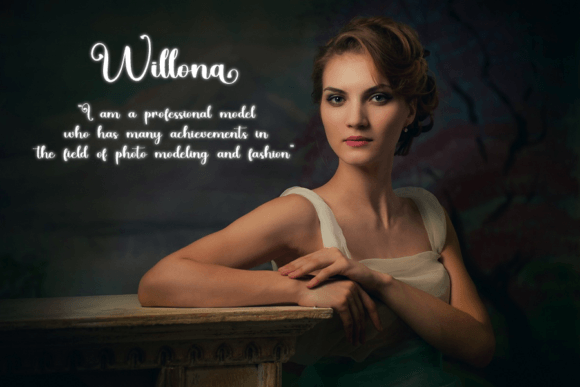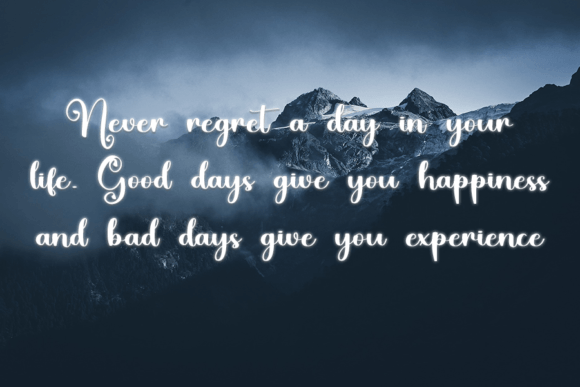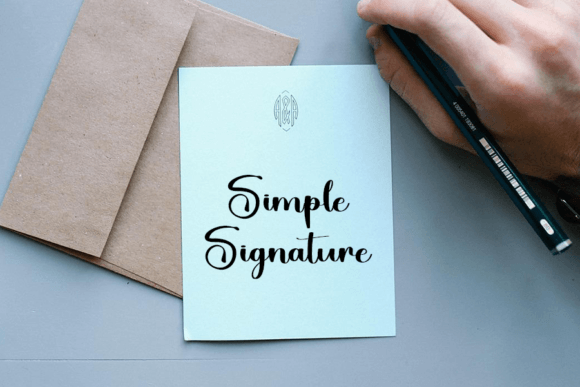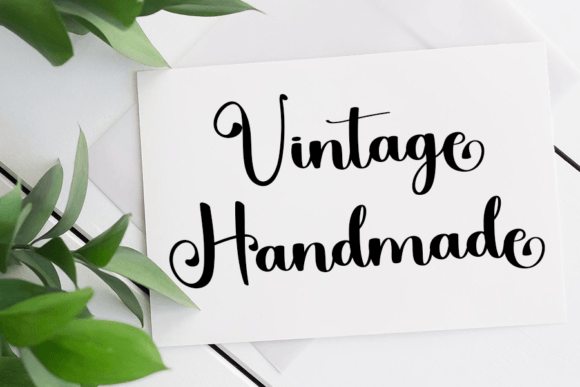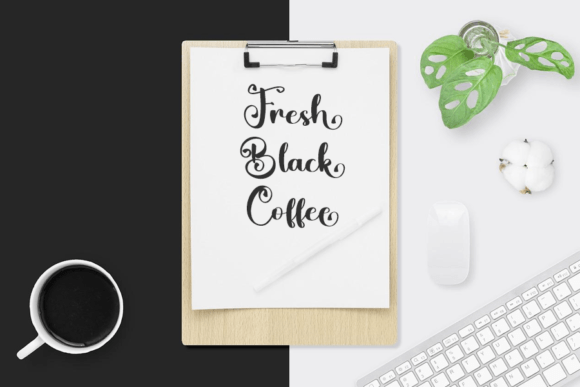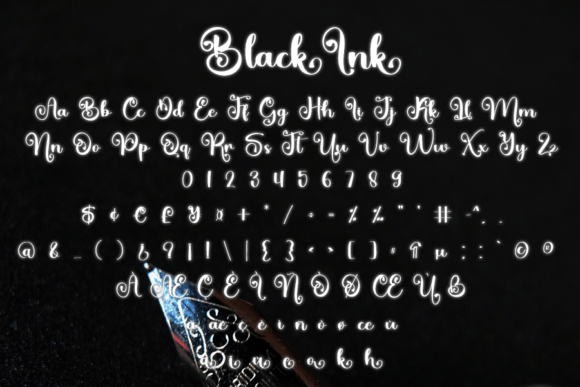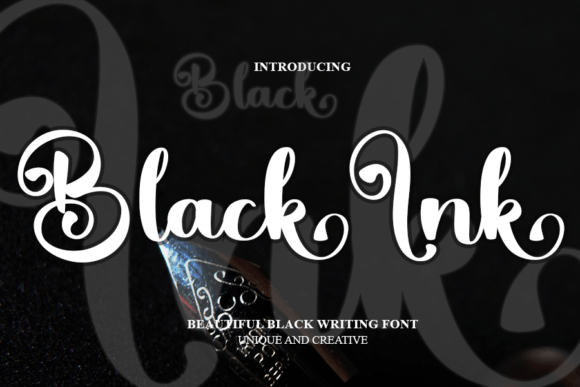
The Quest for the Perfect Font: Discovering Black Ink
I’ll never forget the time I was working on a project for a client who wanted a font that was both modern and elegant. I had spent hours scouring the internet for the perfect font, but nothing seemed to fit the bill. That was until I stumbled upon Black Ink, a cool handwritten font with a modern vibe and spotless form. In this article, I’ll share my experience with Black Ink, its features, and how to make the most of it in your designs.
First Impressions: A Balanced and Versatile Font
Black Ink is a beautifully crafted font that draws inspiration from classic calligraphy. Its balanced and varied strokes make it perfect for a wide range of projects, from branding and advertising to crafting and DIY tutorials. The font’s modern vibe and spotless form ensure that it will enhance the beauty of your projects, rather than overpowering them.
So, what do I love about Black Ink? Here are a few things that make it stand out:
• ✨ Balanced strokes: Not too thin and not too thick, Black Ink’s strokes are perfectly balanced, making it easy to read and visually appealing.
• ✅ Variety of glyphs: The font comes with a range of glyphs, including stylistic alternates, ligatures, and swashes, which add a touch of elegance to your designs.
• 💫 Modern vibe: Black Ink’s modern vibe makes it perfect for contemporary designs, from social media graphics to branding and advertising.
And, like any font, Black Ink isn’t perfect. Here are a few quirks to keep in mind:
• 🤔 Limited use in small sizes: While Black Ink is beautiful in larger sizes, it can become a bit tricky to read in smaller sizes.
• ⚠️ Some glyphs require manual adjustment: While the font comes with a range of glyphs, some may require manual adjustment to get the perfect look.
The Story Behind Black Ink
Black Ink was designed by a team of typographers who wanted to create a font that was both modern and elegant. Inspired by classic calligraphy, they crafted a font that would be perfect for a wide range of projects, from branding and advertising to crafting and DIY tutorials.
What is Black Ink? Black Ink is a cool handwritten font with a modern vibe and spotless form, inspired by classic calligraphy.